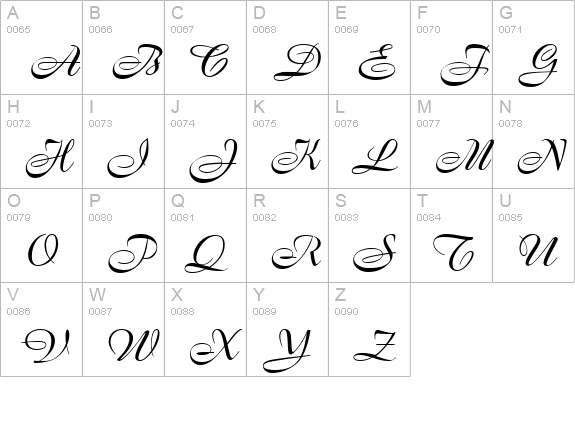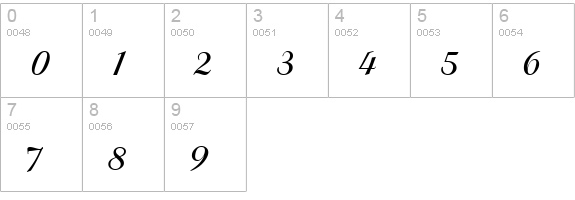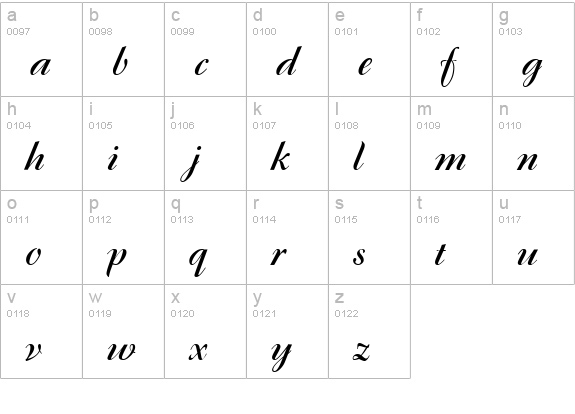
FrancineHmkBold Font Details
Introducing FrancineHmkBold font, a bold and impactful typeface that exudes personality and flair. With its strong, thick strokes and elegant curves, this font is perfect for making a statement in any design project. Whether you're creating posters, logos, or social media graphics, FrancineHmkBold is sure to catch the eye and leave a lasting impression. What's even better is that FrancineHmkBold is available for free download at FontsMarket.com. That's right, you can add this stunning font to your collection without having to spend a dime. So why wait? Elevate your designs with the striking beauty of FrancineHmkBold today!